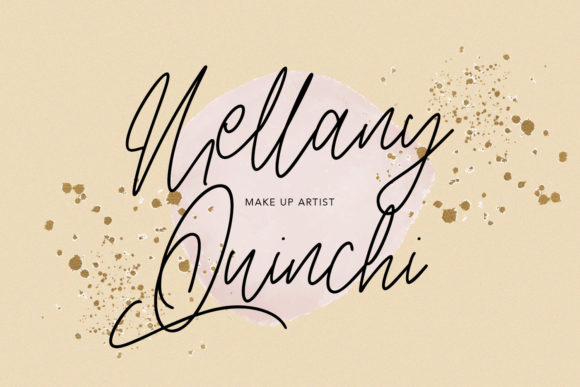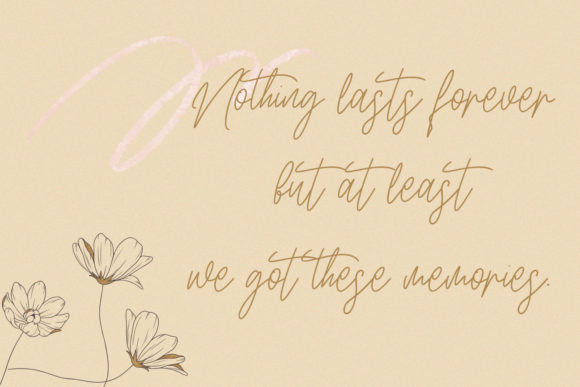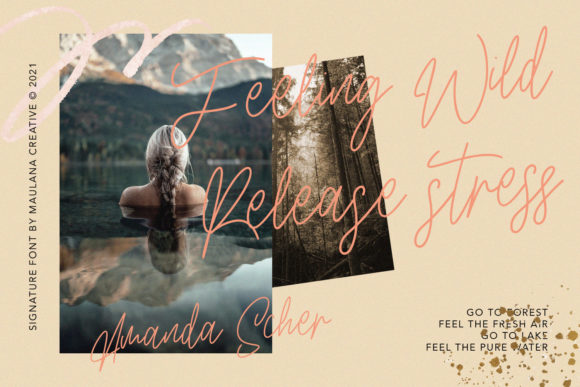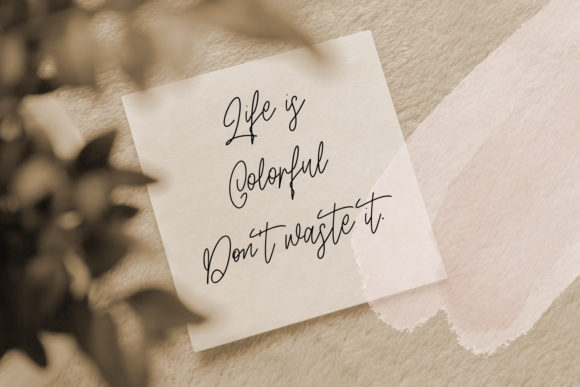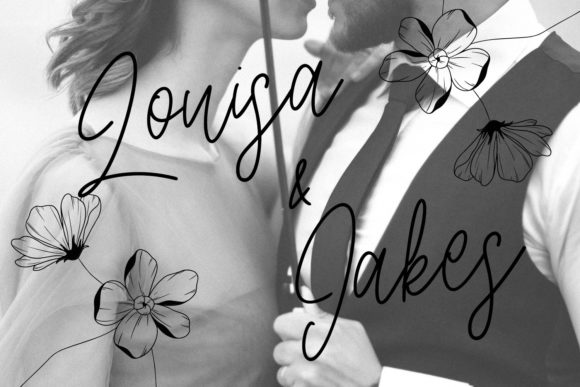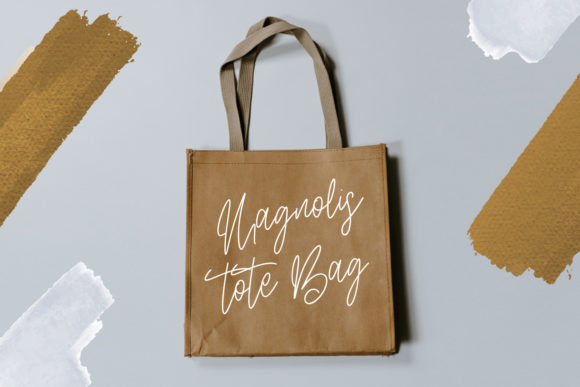
Discover the Timeless Elegance of Amberlayton Font
Have you ever stumbled upon a beautiful, handwritten message that sparks your creativity and makes you want to create something special? For designers, this moment is often the catalyst for a new project or inspiration. It was this exact feeling that led us to discover the Amberlayton Font, a stunning script font that embodies the perfect blend of sophistication and playfulness.
Amberlayton Font is a versatile script font designed to add a touch of elegance to any creation. Its thin, casual lines make it perfect for a wide range of applications, from wedding invitations to social media posts. Whether you’re a seasoned designer or just starting out, this font is an invaluable addition to your toolkit, allowing you to bring your unique style and vision to life.
Amberlayton Font Key Features
- Font Style: Script, Calligraphy
- Character Count: 400 characters, including uppercase and lowercase letters, numbers, and punctuation
- Unique Characteristics: Elegant, cursive design with swashes and flourishes, suitable for wedding invitations, greeting cards, and other creative projects
Designer Review: Amberlayton Font
When I first laid eyes on the Amberlayton font, I was immediately drawn to its unique blend of elegance and playfulness. The font’s combination of rounded edges and sharp lines creates a visually appealing contrast that sets it apart from more traditional sans-serif fonts. ✨ I appreciate how the font’s designer has carefully balanced these opposing elements to create a cohesive and eye-catching visual identity.
One of the strengths of the Amberlayton font is its versatility. It can be used for a wide range of applications, from body text to display headings, and even logos. The font’s high x-height and open counters make it highly legible, even at small font sizes. ✨ Additionally, the font’s extensive character set ensures that it can handle a variety of languages and special characters.
- ⚠️ Limited support for advanced typographic features, such as ligatures and kerning
- ⚠️ Not ideal for use in very small font sizes or at low resolutions
- ⚠️ May not be suitable for use in formal or traditional settings
Overall, I’m impressed with the Amberlayton font’s unique design and versatility. While it may have some limitations, it’s a great choice for designers looking to add some visual interest to their projects. With its wide range of applications and high legibility, I think the Amberlayton font has a lot to offer.
Tips for Getting the Most Out of Amberlayton Font
For the best results, use Amberlayton Font for headings and titles, as its elegant and cursive design makes it perfect for emphasis.
Experiment with different font sizes and styles to create a visually appealing design.
Amberlayton Font is ideal for:
Formal event invitations
High-end branding and marketing materials
Alternatives to Amberlayton Font for Designers
The Great Vibes Font is a modern, elegant script font suitable for various design projects, including invitations, logos, and packaging. It’s ideal for adding a touch of sophistication and creativity to your designs.
Great Vibes Font compares to Amberlayton Font as both are elegant and modern, but Great Vibes has a more refined and sophisticated look, making it more suitable for high-end designs. Great Vibes Font has a wider range of styles and weights, offering more flexibility for designers.
Carolyna Pro Font is a luxurious, modern script font perfect for luxury brands, high-end designs, and special occasions. It’s ideal for creating a sense of elegance and sophistication in your designs.
Carolyna Pro Font compares to Amberlayton Font as both are elegant and sophisticated, but Carolyna Pro has a more luxurious and refined look, making it more suitable for high-end designs. Carolyna Pro Font has a wider range of styles and weights, offering more flexibility for designers.
Alex Brush Font is a beautiful, elegant script font suitable for various design projects, including logos, invitations, and packaging. It’s ideal for adding a touch of creativity and sophistication to your designs.
Q: What is the recommended line height for using Amberlayton Font?
The recommended line height for Amberlayton Font is between 1.2 and 1.5 times the font size. This will help ensure that the text is readable and visually appealing.